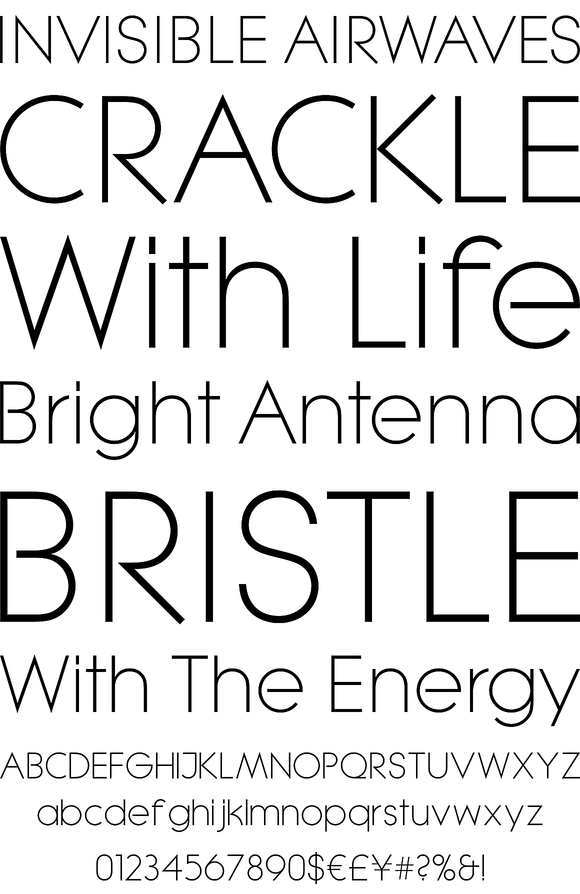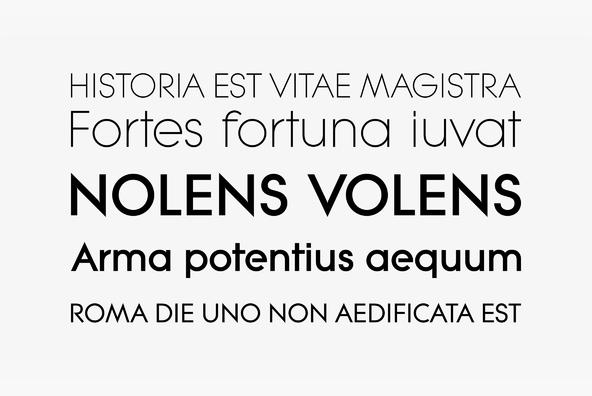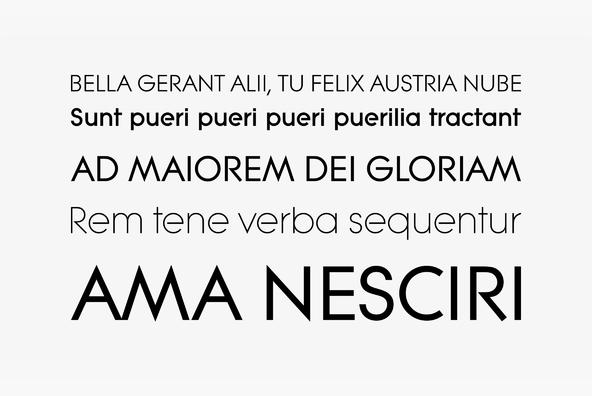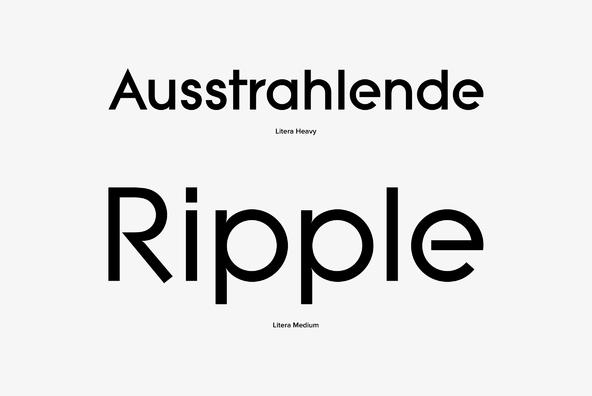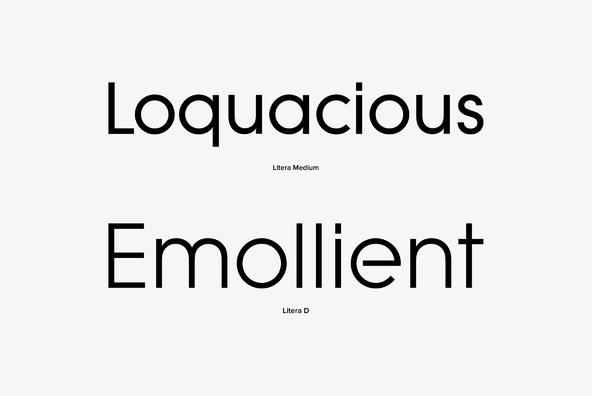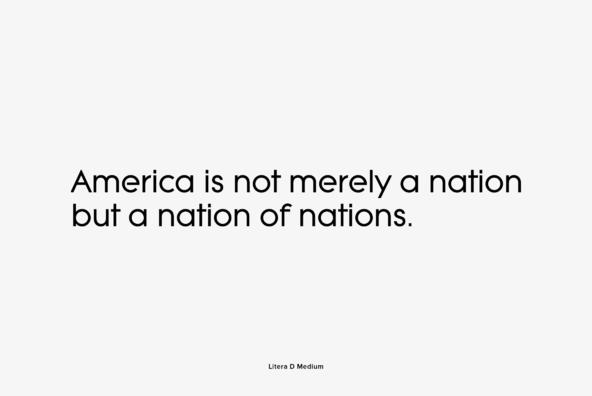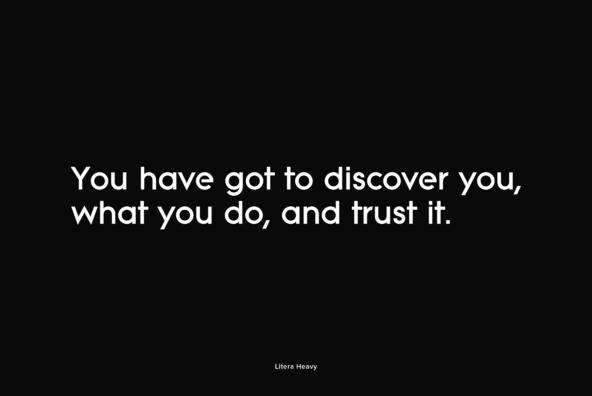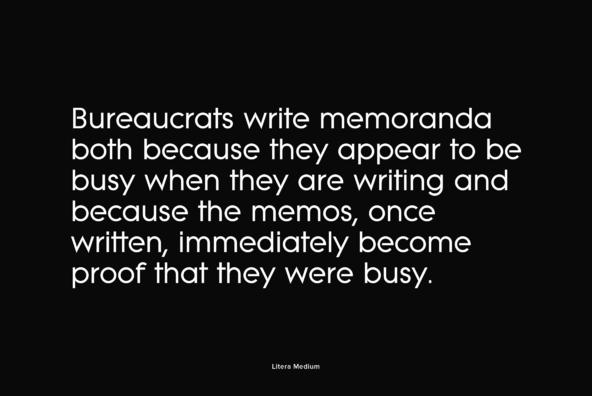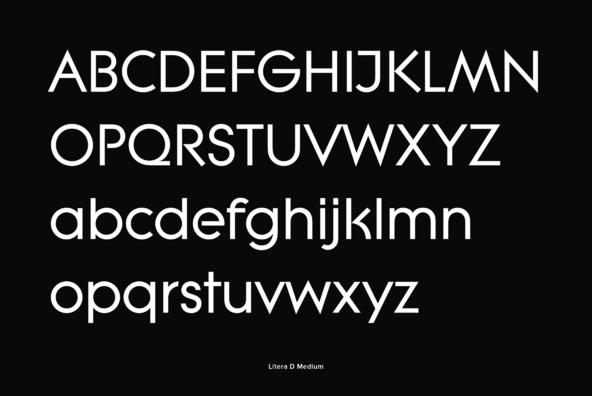
Litera was originally designed by Michael Neugebauer, this version is a URW digitization of Letraset's interpretation. Litera has a strong Bauhaus feeling to it that works great in slightly retro-themed projects.